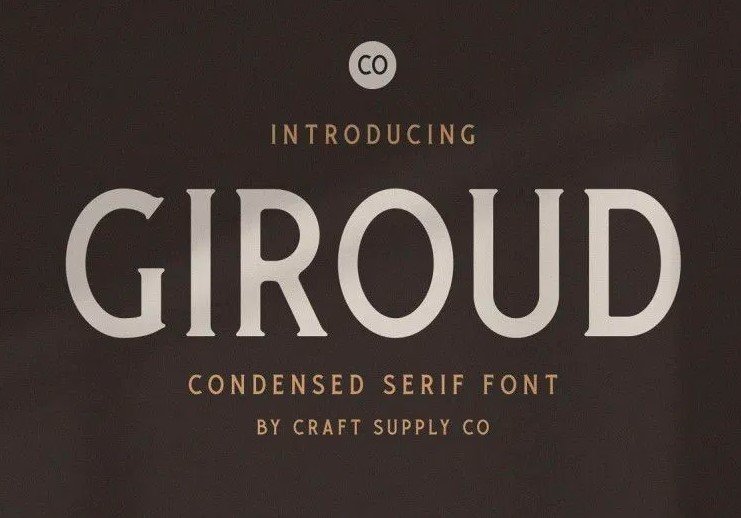
There are lots of ways to utilize this beautiful and elegant typeface which has the most sophisticated texture and comes with unique alternates and ligatures
We greatly appreciate Craft Supply Co. for providing us with the amazing vintage typeface at no cost. Presenting Giroud Condensed Serif Font, an excellent display and modern typeface perfect for all design projects.
There are lots of ways to utilize this beautiful and elegant typeface which has the most sophisticated texture and comes with unique alternates and ligatures that will provide you lots of options for classical and elegant styles.
The font is suitable for use with ar destine font contains solid and bold styles which is suitable for making blog headers, all sizes of headings, typographic use, and other kind of stuff also.